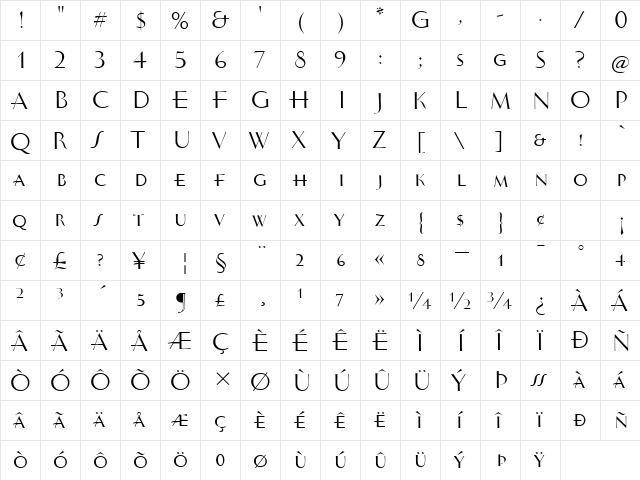
VintageITC TT Regular Font Preview
VintageITC TT Regular
Design Context for VintageITC TT Typeface
VintageITC TT has the warm character of retro typography — evoking diners, record sleeves, and the golden age of print advertising.
Font Pairing: Combine VintageITC TT with a simple slab or neutral sans — period-accurate companions reinforce the vintage feel without competing for attention.
Pro Tip: Lean into VintageITC TT's period character by pairing it with aged paper textures, muted colour palettes, and vintage illustration styles.